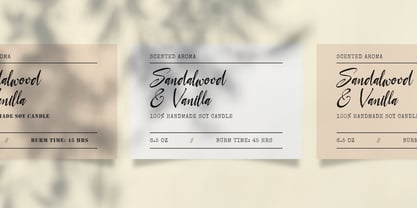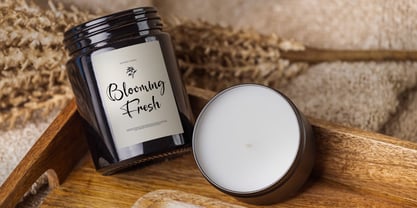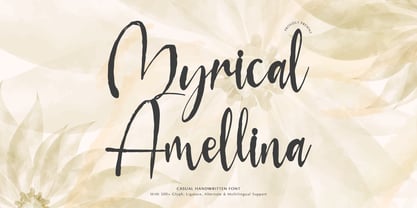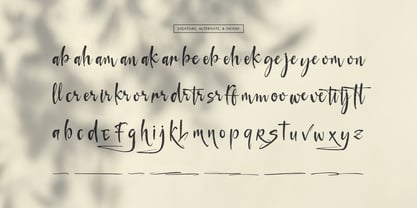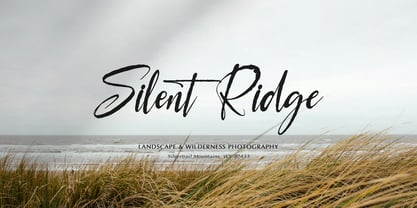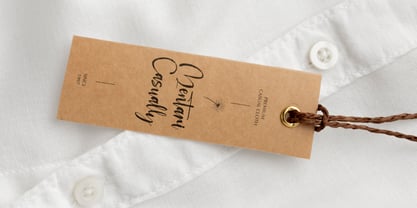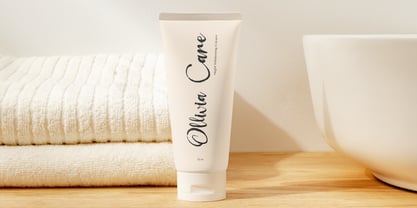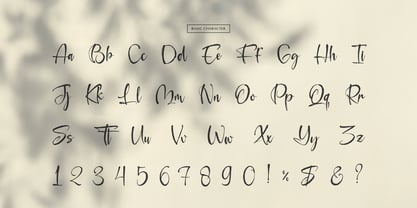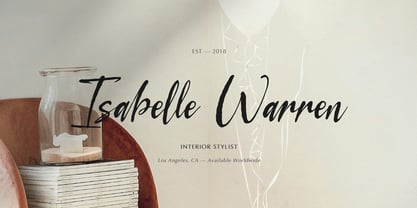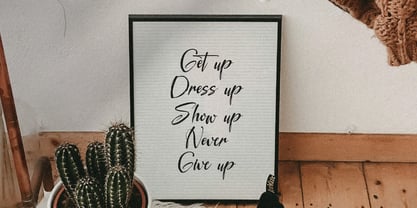
Myrical Amellina
The Myrical Amellina Font Family was designed by and published by Tini Fitriani. Myrical Amellina contains 2 styles and family package options. More about this family
Myrical Amellina | Casual Handwritten Font, from Gracetypestudio, suitable for any projects such as: logos, branding projects, homeware designs, product packaging, mugs, quotes, posters, shopping bags, t-shirts, book covers, name card, invitation cards, greeting cards, label, photography, watermark, special events, and all your other lovely projects that need a Casual Handwritten Font taste.
• Regular and Italic
• Standard glyphs
• Alternate and Ligature
• Fonts include multilingual support